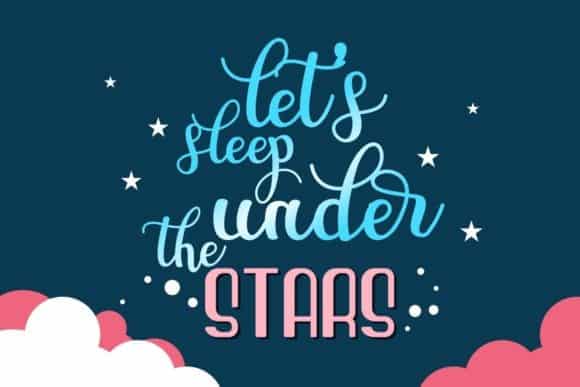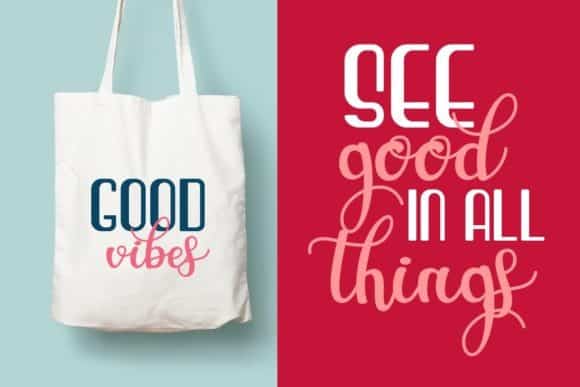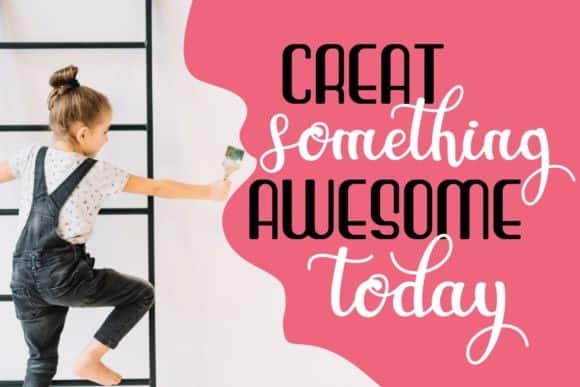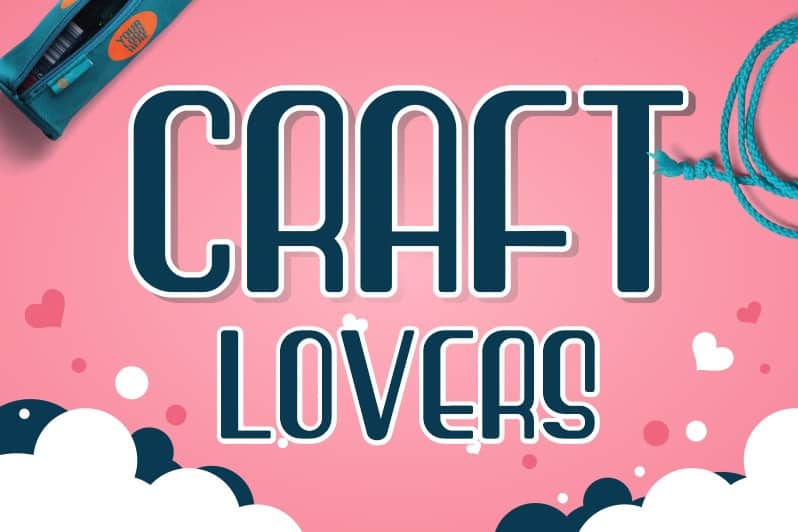
Craft Lovers Display Font
Craft Lovers Display Font is a bold and authentic display font. It celebrates abstract shapes in all their eclectic beauty. Made from font designer named HansCo. This cute font is perfect for creating craft projects, posters, branding, invitations, quotes, or anything else. Make your new designs stand out with Craft Lovers!